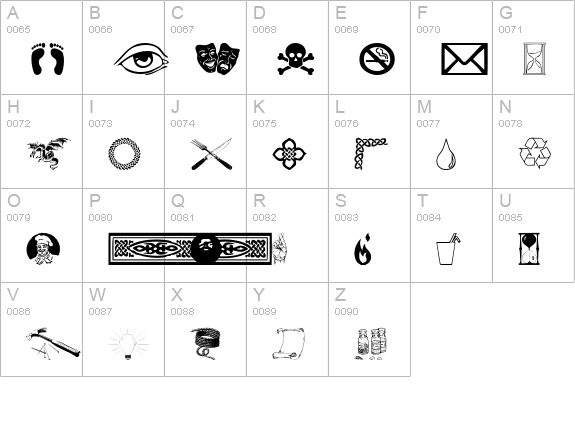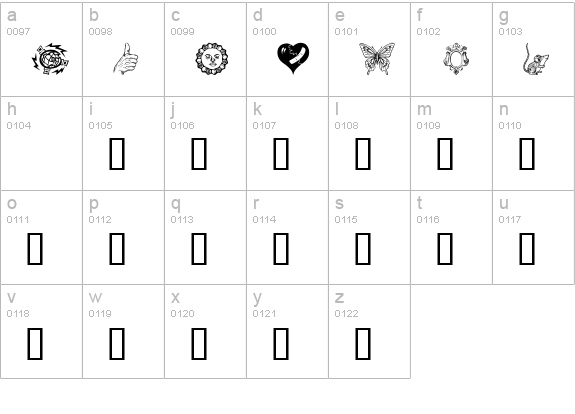
Introducing Odds n Sods font, a whimsical and playful typeface that is perfect for adding a touch of fun to your designs. This unique font features a mix of quirky characters and irregular shapes, giving it a handmade and artisanal feel. Whether you're working on a poster, logo, or branding project, Odds n Sods font is sure to make your design stand out. Best of all, Odds n Sods font is available for free download at FontsMarket.com. So go ahead and add this charming font to your collection today and let your creativity run wild!